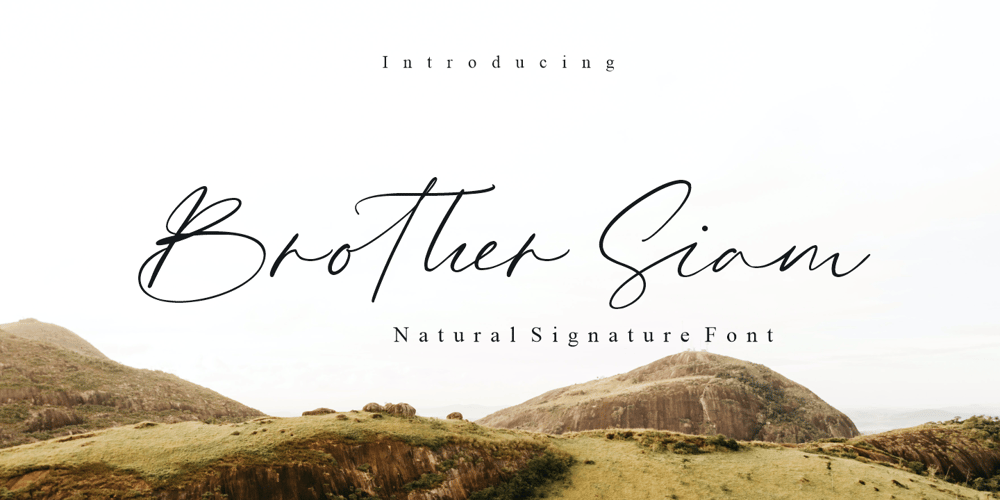
Brother Siam Font Family was designed by Joko Setiono and published by Arttype7. Brother Siam contains 1 styles and family package options. Brother Siam font, is a handwritten font with a professional signature style.equipped with 30 ligatures to add a natural impression.It is perfect for business cards, wedding invitations, fashion magazines, photography watermarks, logos, product packaging, branding projects, megazines, social media, weddings, or just to use to express the words over the background.regards